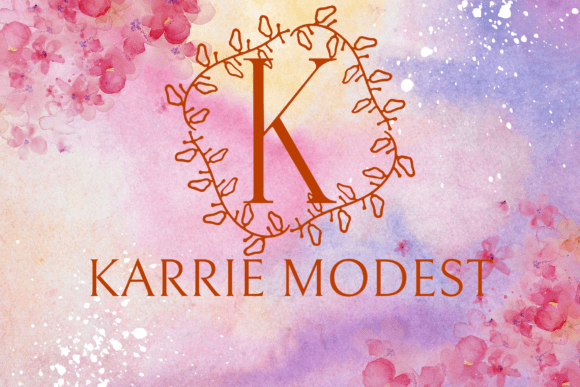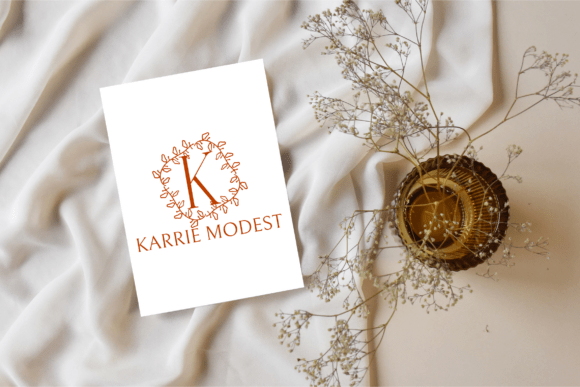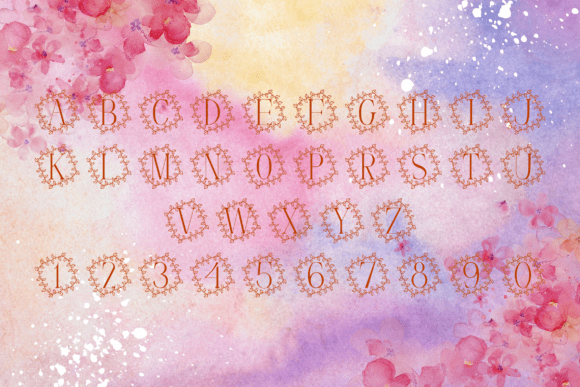
Introduction to Meadowline Monogram Font
Have you ever been lost in the beauty of an open meadow, surrounded by wild blooms swaying gently in the breeze? For designers, those moments of serenity can often translate into creative visions for our next project. And for those seeking the perfect design resource, we’re excited to introduce the Meadowline Monogram Font – a refined serif monogram font that captures the essence of those idyllic scenes.
This elegant typeface is more than just a font – it’s a tool for designers to create custom initials, wedding crests, and feminine branding that exudes natural sophistication. Each uppercase letter is paired with soft, minimalist botanical illustrations, making it an ideal choice for artistic stationery and other creative projects.
Key Features of Meadowline Monogram Font
- Unique Monogram Design: Meadowline Monogram Font offers a distinctive and creative way to add personal touches to designs, making it a valuable resource for designers.
- High-Quality Graphics: This font features high-quality graphics with a transparent background, allowing for seamless integration into various design projects.
- Resolution: The font is designed to be resolution-independent, ensuring that it looks sharp and clear at any size or resolution.
- Customizable: Meadowline Monogram Font can be easily customized to fit various design styles and themes, making it a versatile resource for designers.
- Perfect for Design Projects: With its unique design and high-quality graphics, Meadowline Monogram Font is an ideal resource for designers working on creative projects that require a personal touch.
Honest Review: Meadowline Monogram Font
As a designer, I’ve had the pleasure of working with various fonts, and the Meadowline Monogram Font is definitely one that stands out. This high-quality design resource is perfect for anyone looking to add a touch of elegance and sophistication to their creative project.
Here are some of the features that I think work particularly well:
- ✨ High-quality design with a transparent background, making it easy to work with
- ✨ Available in a range of sizes and styles, making it easy to customize
- ⚠️ Limited character set, which may make it difficult to use for longer blocks of text
- ⚠️ May not be suitable for digital use, due to its high resolution
Overall, I’m really impressed with the Meadowline Monogram Font. Its high quality and versatility make it a great choice for designers looking to add a touch of elegance to their creative project.
Transparent Background and High-Quality Design
The Meadowline Monogram Font is designed with a transparent background, making it perfect for creative projects that require a clean and elegant design. Its high-quality design ensures that it looks great in various sizes and resolutions.
The Meadowline Monogram Font is ideal for:
- Business branding and marketing materials
- Personalized gifts and decorations
To get the most out of the Meadowline Monogram Font, use it in combination with other design elements that complement its elegant and sophisticated design. Experiment with different font sizes, colors, and arrangements to create unique and eye-catching designs.